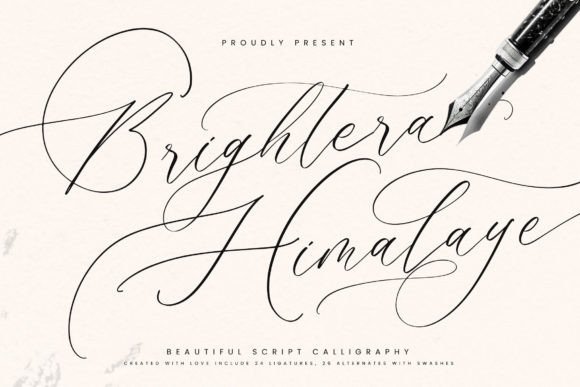
The Elusive Font: A Designer’s Quest for Brightera Himalaye
Have you ever been in the middle of a design project, and suddenly, the perfect font seems to be nowhere to be found? I recall a particularly frustrating experience when a client asked for an elegant, handwritten font for their wedding invitation suite. After scouring the internet, I stumbled upon Brightera Himalaye – a modern and charming handwritten font that exuded elegance and personality. In this article, I’ll share my journey with this beautiful font, its features, and how to make the most of it in your designs.
First Impressions: A Love Letter to Brightera Himalaye
As soon as I laid eyes on Brightera Himalaye, I knew I had found something special. Its graceful, flowing strokes and sophisticated character make it perfect for upscale invitations, personal branding, and chic editorial designs.
What I Love About Brightera Himalaye
- ✨ Elegant and refined aesthetic, perfect for high-end designs
- 💫 Beautifully crafted with attention to detail
- 🎨 Versatile and adaptable to various design styles
While Brightera Himalaye is an exceptional font, it’s not without its quirks. For instance:
- 🤔 Some users may find the font a bit too ornate for very casual designs
- Experiment with OpenType features, such as glyphs and stylistic alternates, to add visual interest to your design
The Story Behind Brightera Himalaye
Brightera Himalaye was crafted with love and attention to detail by a talented type designer. Inspired by the beauty of handwritten scripts, the designer aimed to create a font that exudes elegance and personality. While the designer’s story may be shrouded in mystery, their passion and dedication to typography shine through in Brightera Himalaye.
| Font Name | Brightera Himalaye Font |
| Author | Letterena Studios |
| What type of designs is Brightera Himalaye best suited for? | Brightera Himalaye is perfect for upscale invitations, personal branding, and chic editorial designs. |
| Is Brightera Himalaye a script font? | While Brightera Himalaye has a handwritten feel, it’s not a traditional script font. It’s a unique blend of elegance and personality. |
| Does Brightera Himalaye support OpenType features? | Yes, Brightera Himalaye supports OpenType features, including glyphs and stylistic alternates. |
With its refined allure and warmth, Brightera Himalaye is sure to elevate your designs to new heights. Whether you’re a designer, crafter, or creative hobbyist, this beautiful font is a valuable addition to your typography arsenal.